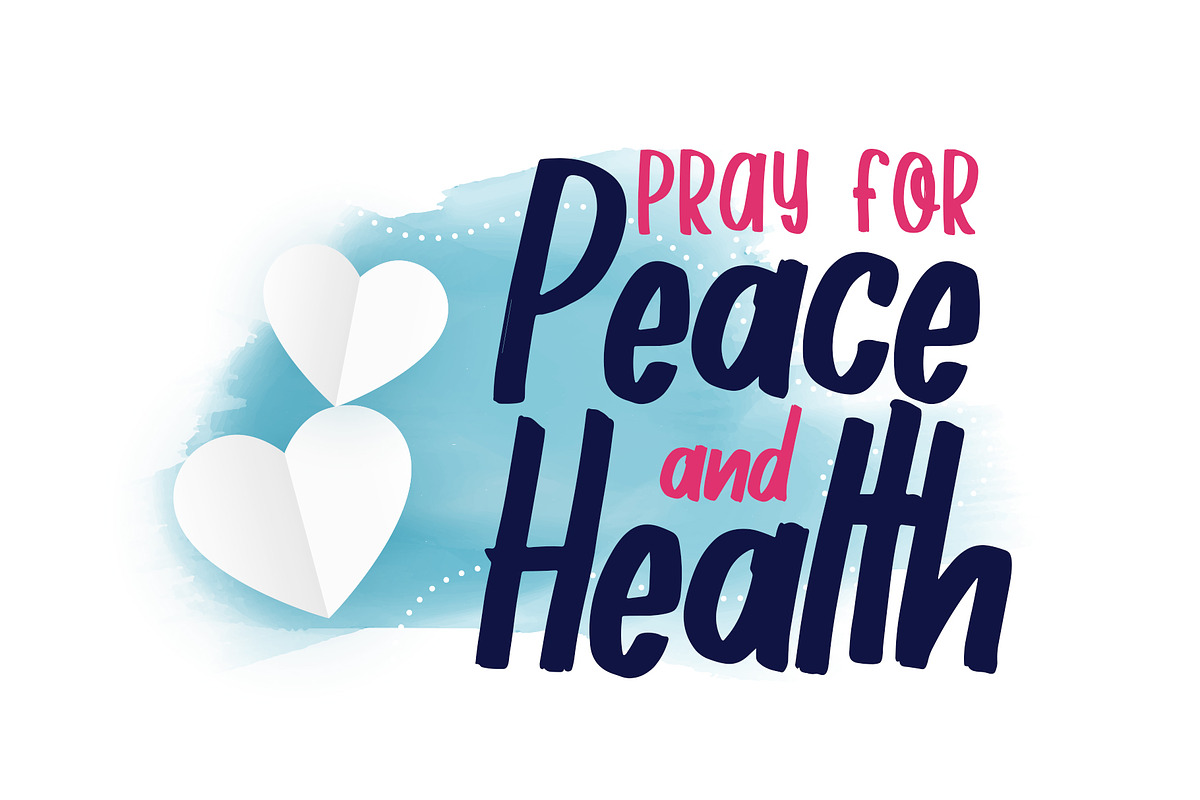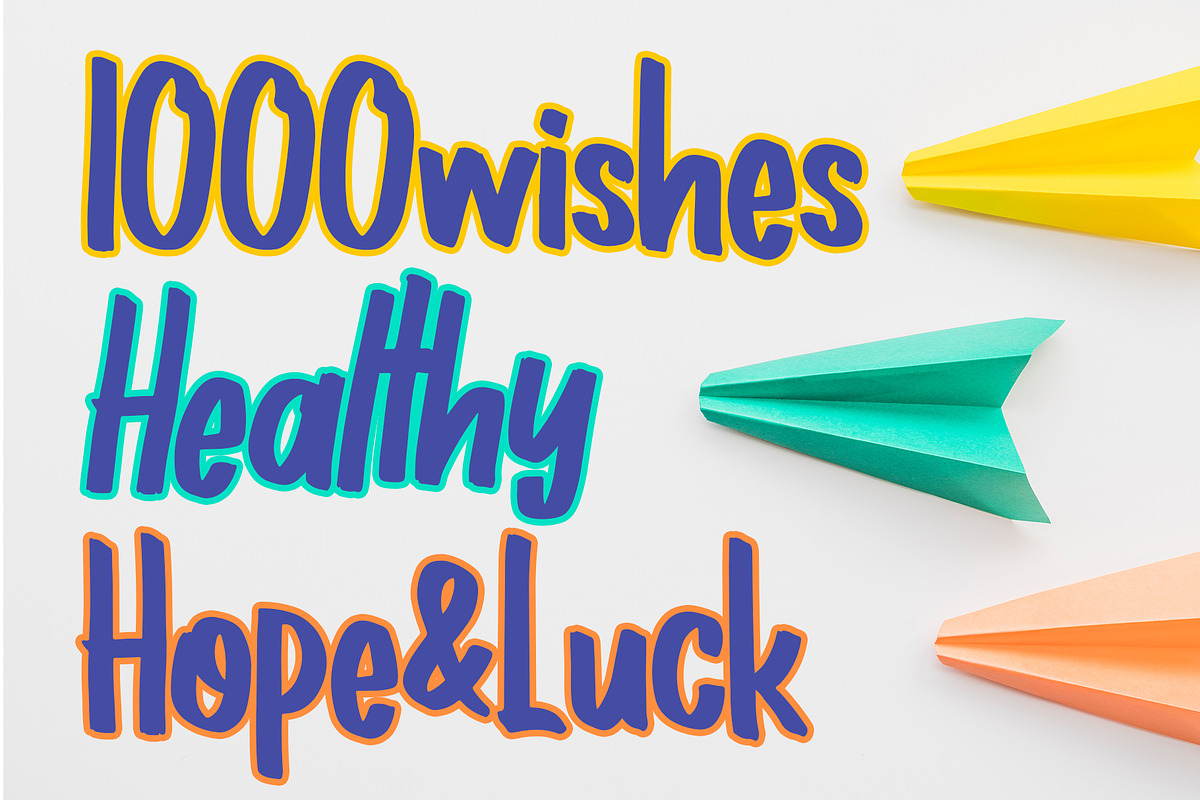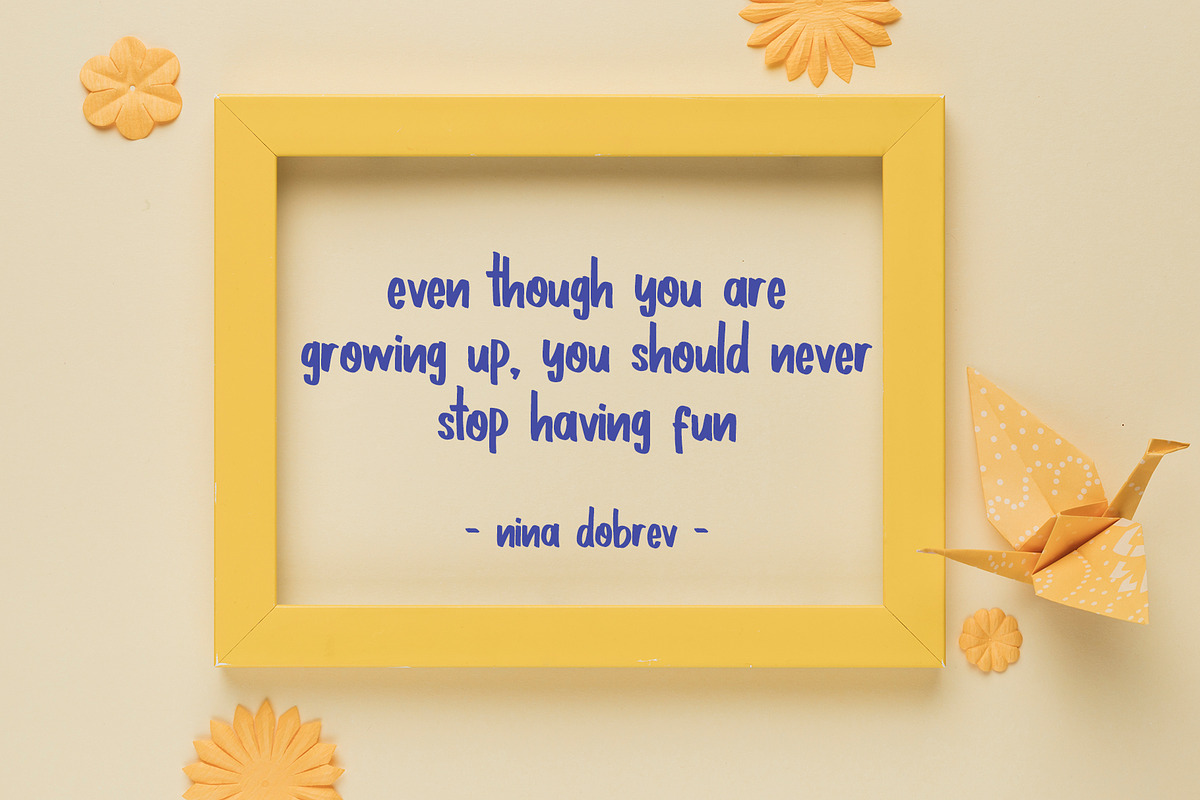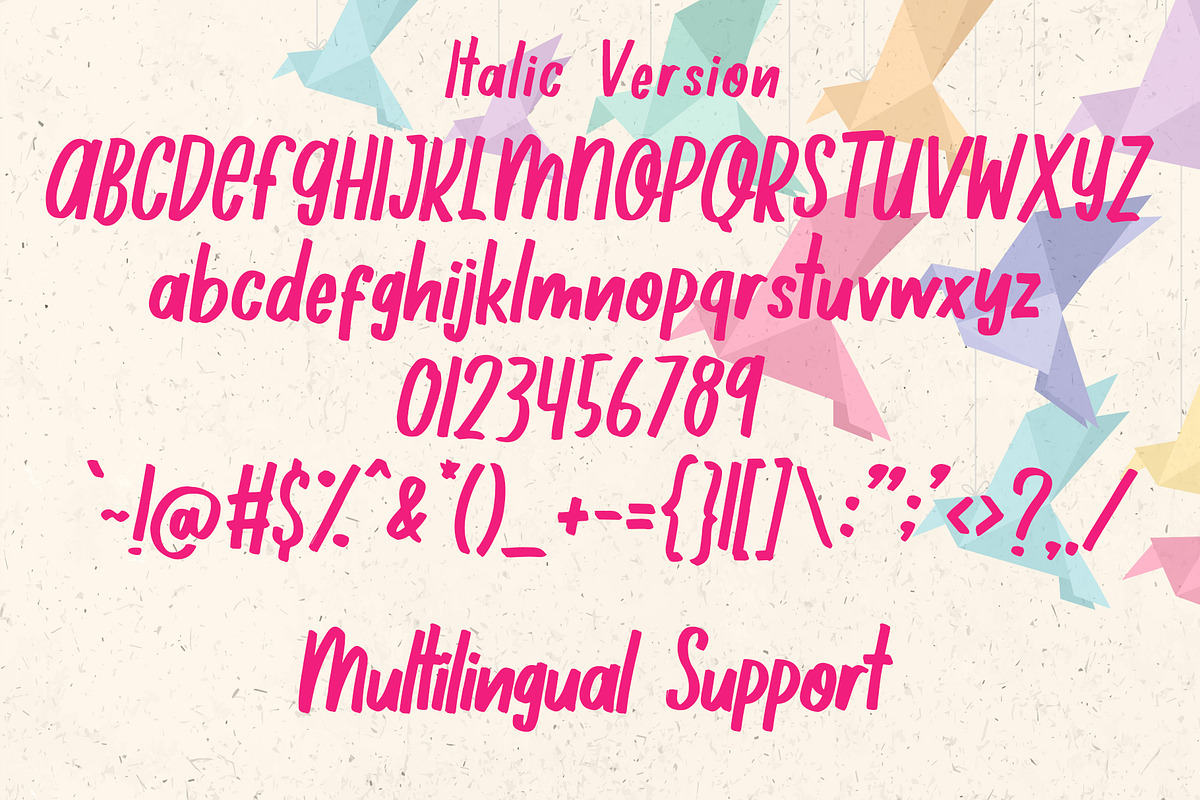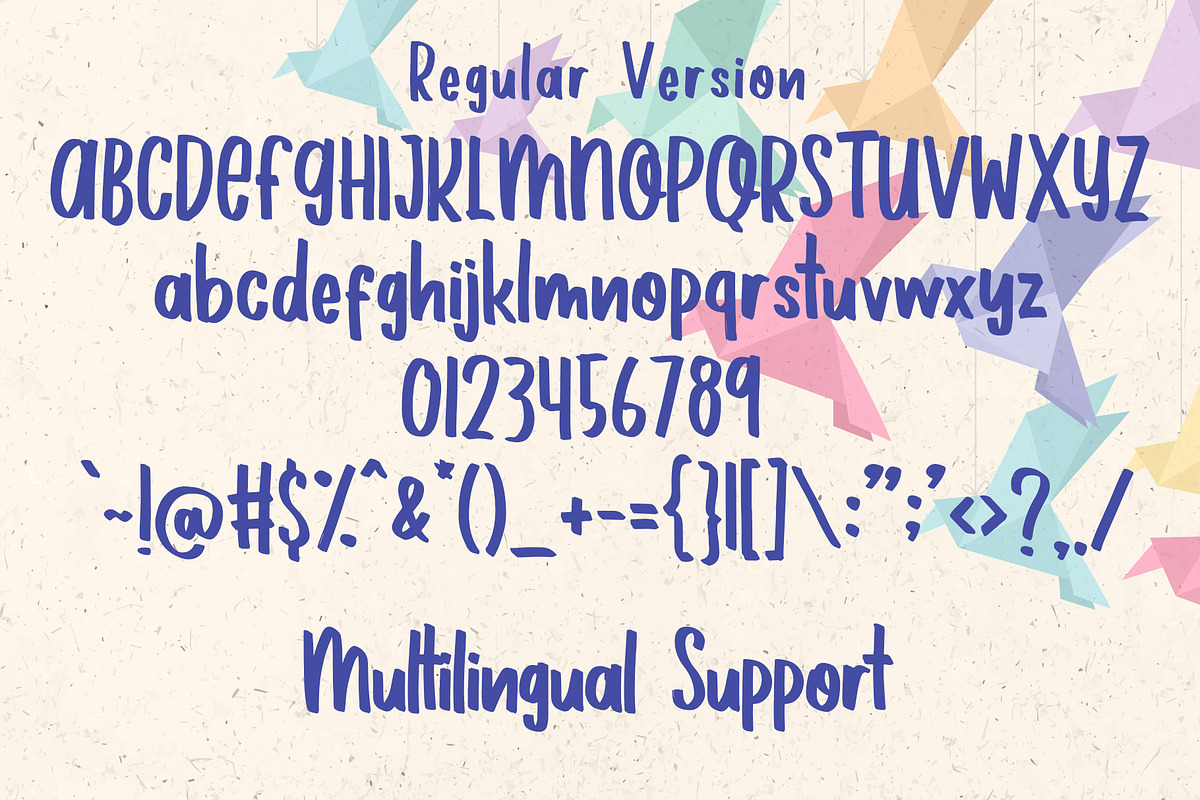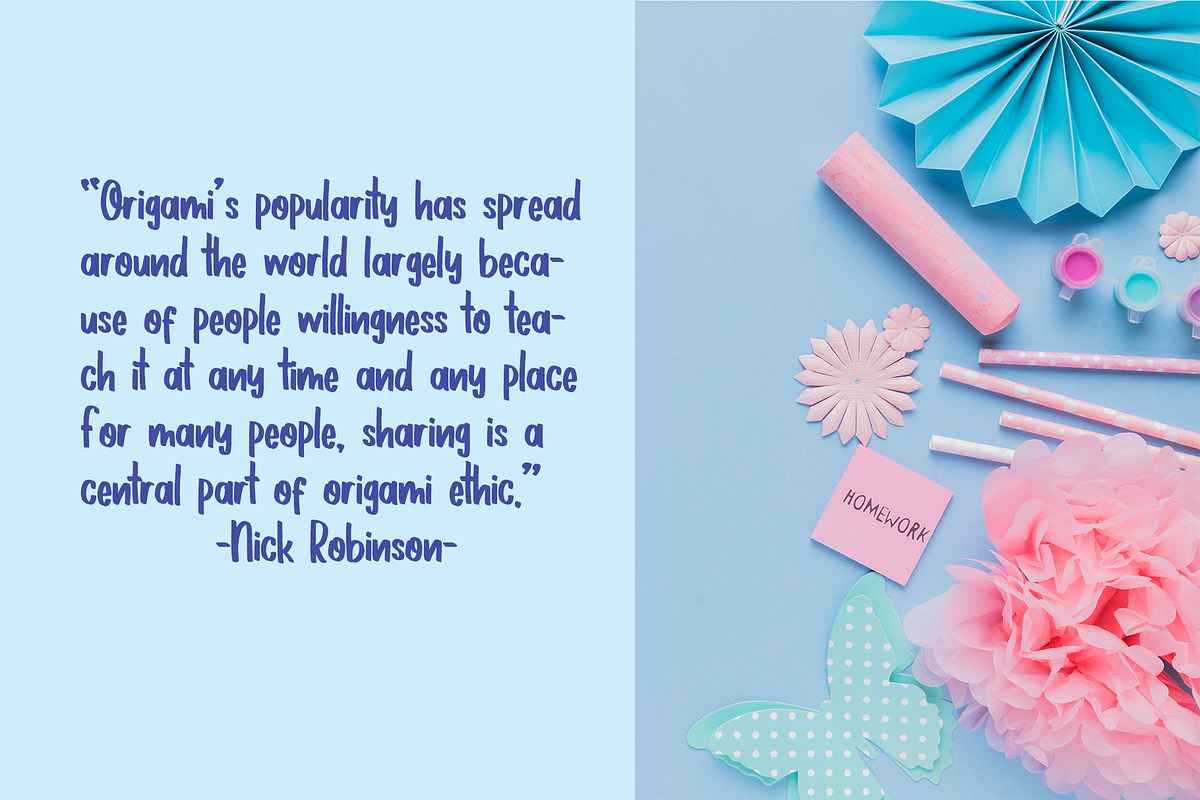
1000 Wishes Origami Font
1000 Wishes Origami is a casual handwritten font with rough texture. Contain two versions, Regular and Italic.
Regular and Italic Version